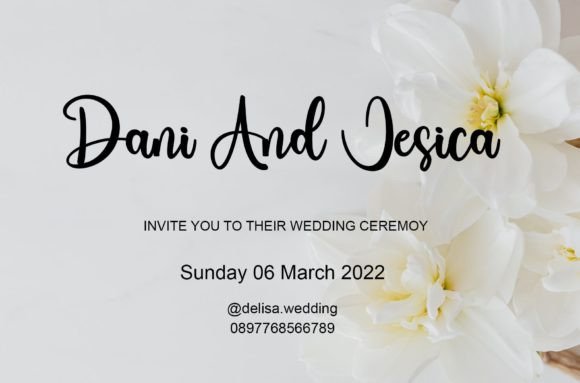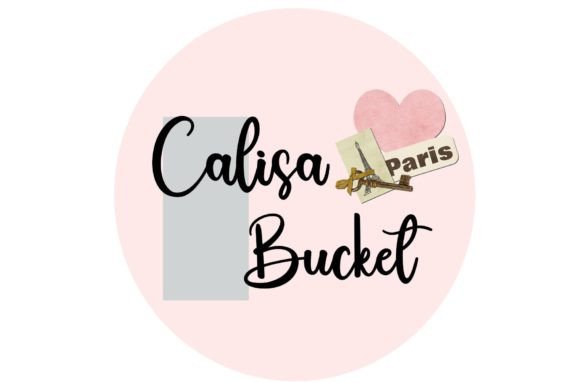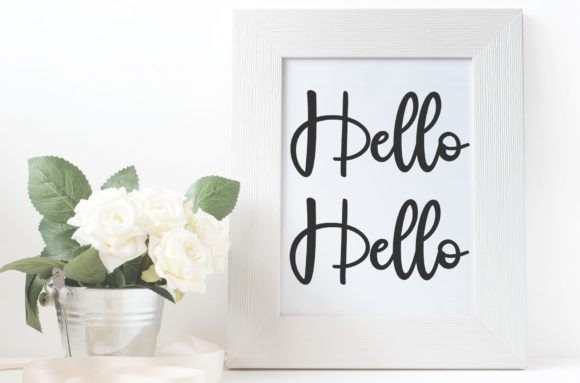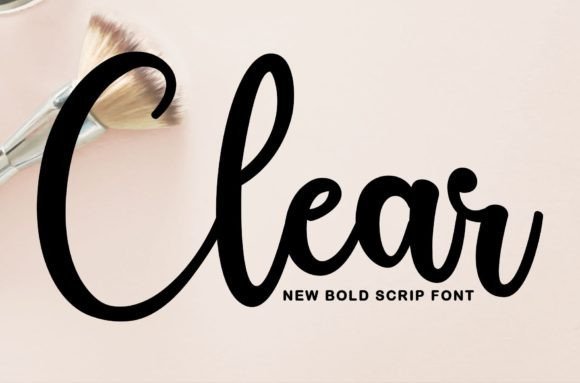
Introduction to Clear Font
Clear is a classic and simple handwritten script, created in a random and free style.
It is suitable for logotype, headline font, in corporate identity, brand identity, apparel industry, poster, music, movie, game, magazine, book, comic, cartoon, YouTube, Instagram, website, or any of your creative design projects .
Key Features of Clear Font